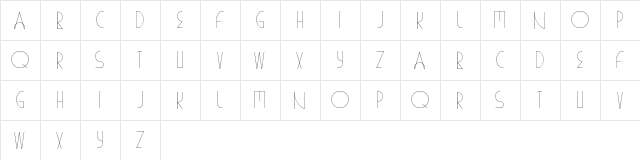
YES LIGHT Font Preview
YES LIGHT
Design Context for YES Typeface
YES takes a measured approach to typography — its balanced proportions and neutral character make it a reliable workhorse for both digital and print work. Its slender proportions lend an understated elegance to any composition.